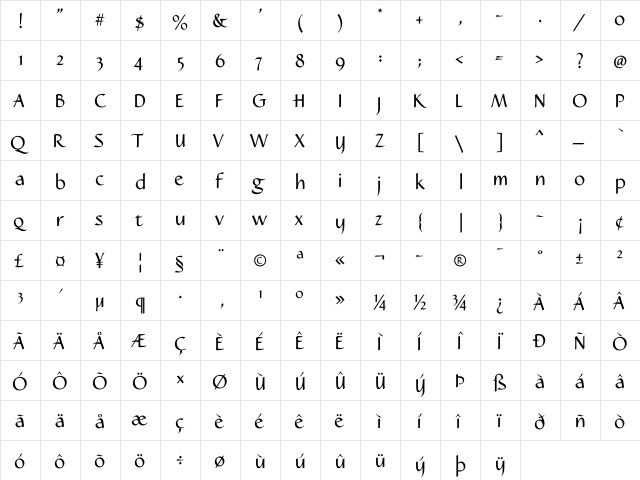
Caterina Regular
Design Context for Caterina Typeface
Caterina takes a measured approach to typography — its balanced proportions and neutral character make it a reliable workhorse for both digital and print work.